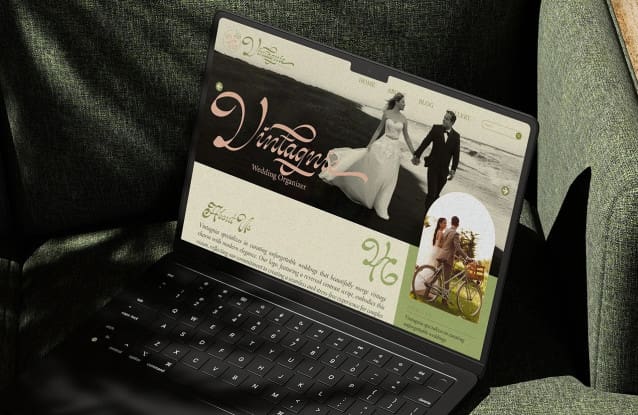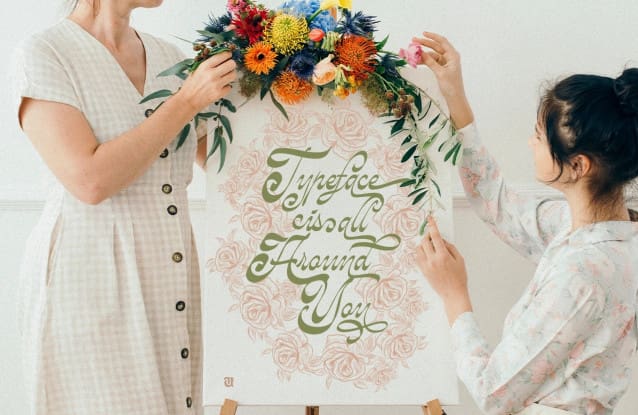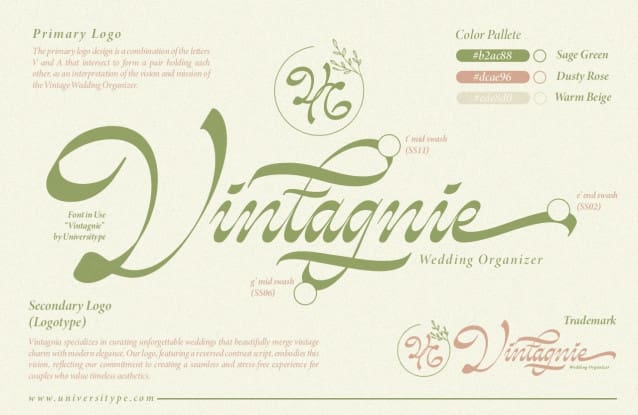
UT Vintagnie Font
UT Vintagnie Font, combining classic elegance with modern functionality. Whether you’re looking to add a romantic touch to your designs or looking for an elegant typeface for your next project, UTVintagnie has everything you need. A classic handwritten typeface, combined with modern versatility, makes it an essential tool in any designer’s collection.